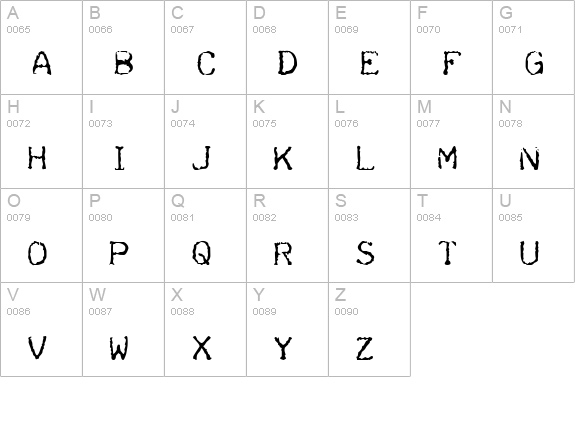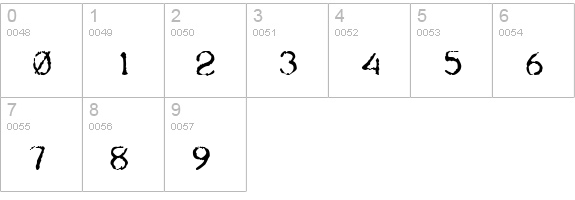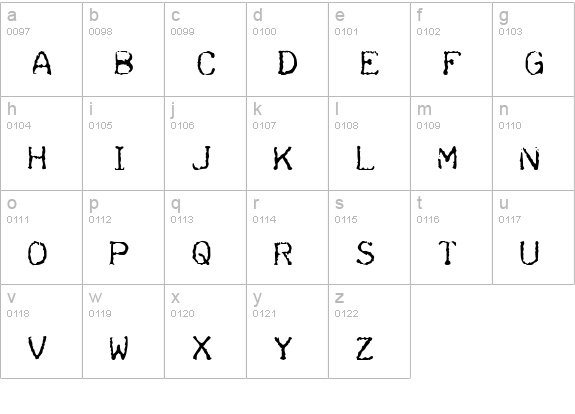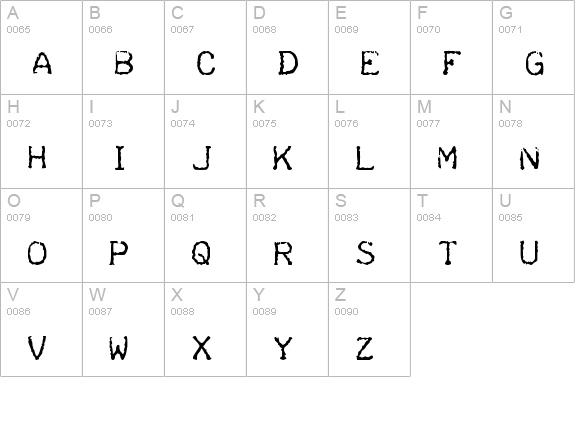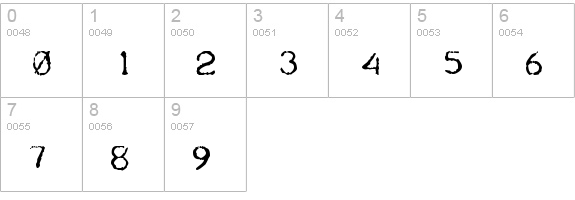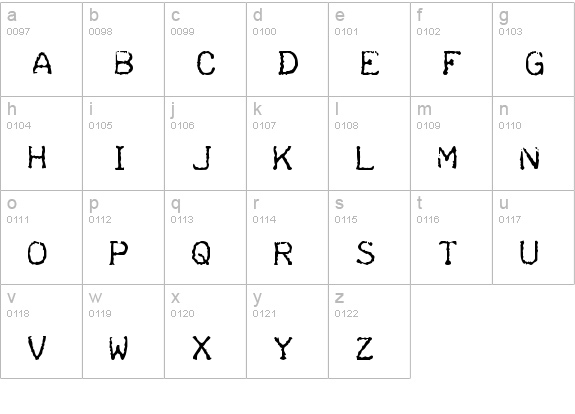
Teleprinter Font Details
Teleprinter font is a visually striking typeface that effortlessly combines the classic charm of typewriters with a modern twist. Its clean and bold lines make it perfect for capturing attention and creating a lasting impact in any design project. With its unique and distinctive characters, Teleprinter font brings a touch of nostalgia to any text. Whether you're creating vintage-inspired posters, retro logos, or simply adding an old-school vibe to your website, this font is sure to elevate your designs to a whole new level. What sets Teleprinter font apart is not only its aesthetic appeal but also its accessibility. Unlike many other premium fonts on the market, Teleprinter font is completely free to download at FontsMarket.com. This means that you can enjoy its beauty without having to worry about breaking the bank. Whether you're a professional designer or a budding creative enthusiast, Teleprinter font is a versatile and powerful tool in your typography arsenal. Its bold and impactful nature allows you to convey your message with confidence and style. Don't miss out on the opportunity to enhance your designs with the timeless appeal of Teleprinter font. Download it for free today at FontsMarket.com and explore the endless possibilities it offers.